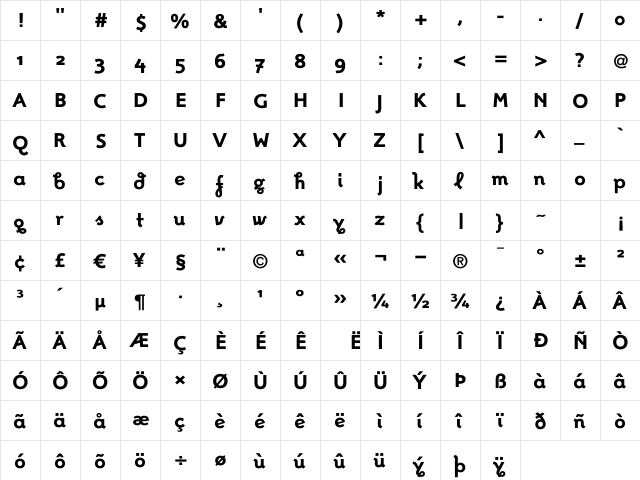
FoxBold Regular
Design Context for FoxBold Typeface
FoxBold is a composed and adaptable typeface that performs quietly and consistently across a wide range of design contexts. The heavy weight commands attention and anchors typographic hierarchies.